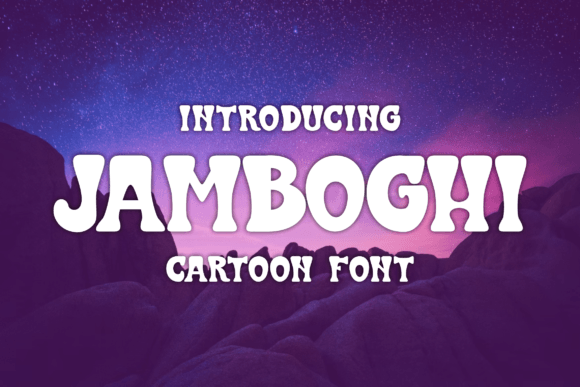
Prepare yourself to witness the allure of Jamboghi, a serif font that exudes boldness and sophistication. Its distinct letterforms, meticulously crafted to leave a lasting impression, will captivate your audience and leave them enthralled. Plunge into a world of visual delight as Jamboghi takes center stage, transforming your creative endeavors into awe-inspiring masterpieces.
Unleash the full potential of your branding endeavors with Jamboghi. Whether you seek a captivating logo to elevate your corporate identity or a striking visual statement for your merchandise, Jamboghi is the perfect companion. Allow your imagination to run wild as you craft eye-catching t-shirt designs, transcend the boundaries of conventional esports graphics, and indulge in countless other projects that yearn for a touch of elegance.
With its remarkable versatility, Jamboghi seamlessly adapts to a myriad of contexts. Experience the wonders of Jamboghi as it embellishes your digital creations, bringing life to web designs and injecting personality into social media posts. Watch in awe as Jamboghi effortlessly transitions from print to digital, adorning brochures, posters, flyers, and every tangible medium you can imagine.
Jamboghi is not merely a font; it's an artistic gateway to a boundless realm of creative possibilities. Its essence lies in its ability to convey depth, emotion, and a multidimensional narrative through the written word. Allow Jamboghi to be your creative ally as you craft compelling headlines that resonate with power, compose body text with finesse, and create unforgettable quotes that linger in the minds of your audience.
Seize the opportunity to make a profound impact on your audience. Let Jamboghi be the key that unlocks your creative potential, propelling you towards a higher echelon of design excellence. Embrace the beauty of expression and communication, and allow Jamboghi to elevate your creative journey to unimaginable heights.